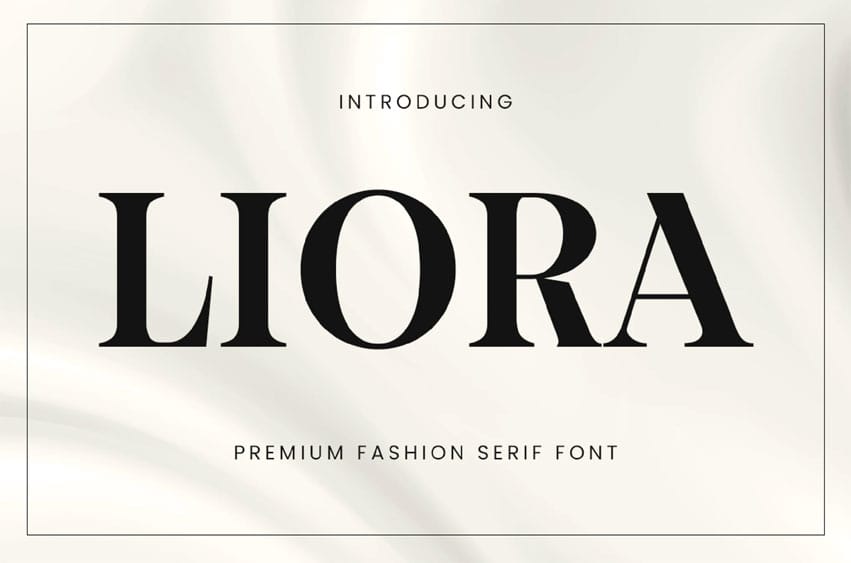
Liora Font Serif is a timeless and sophisticated serif typeface designed to bring elegance and charm to any design project. With its high contrast strokes, refined curves, and strong vertical presence, Liora Serif blends classic beauty with a modern edge, making it perfect for premium branding and editorial use.
This typeface features a full set of uppercase and lowercase letters, numerals, and punctuation, all crafted to deliver high legibility and aesthetic appeal. The delicate yet bold character of Liora Serif is ideal for luxury packaging, fashion logos, wedding invitations, magazine headlines, and upscale marketing materials. Whether you’re designing for print or digital, Liora Serif ensures your typography stands out with style and grace.
Perfect for:
- Luxury branding & logo design
- Editorial layouts & magazine titles
- Wedding invitations & stationery
- Fashion & beauty packaging
- High-end marketing visuals